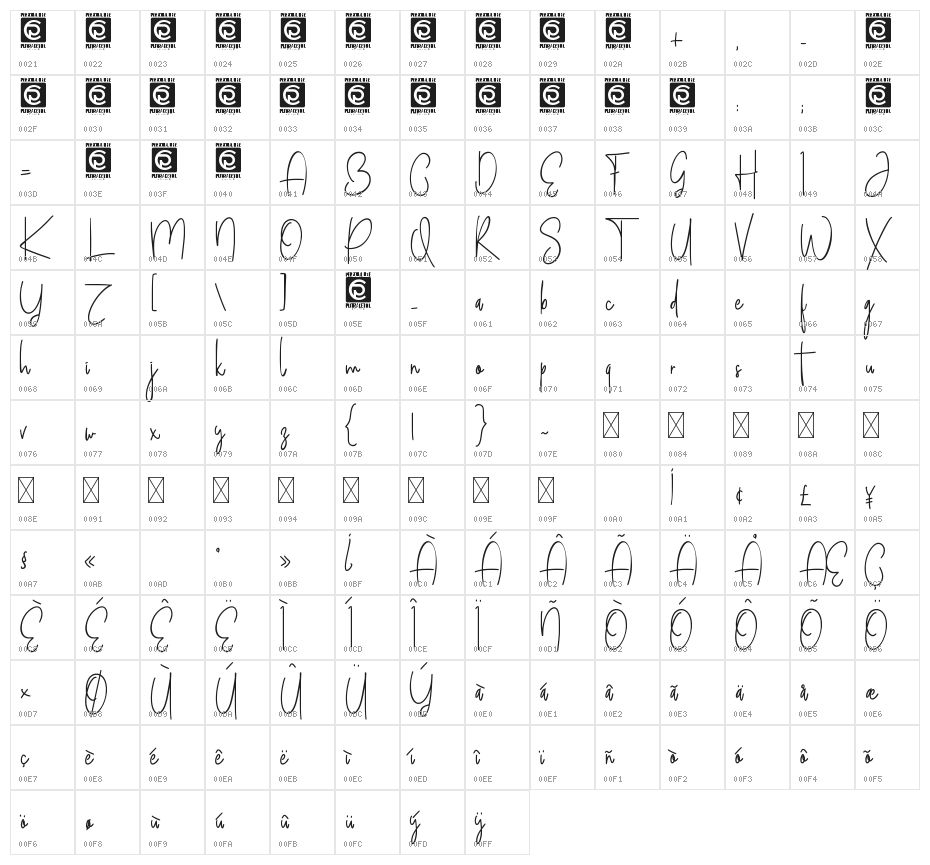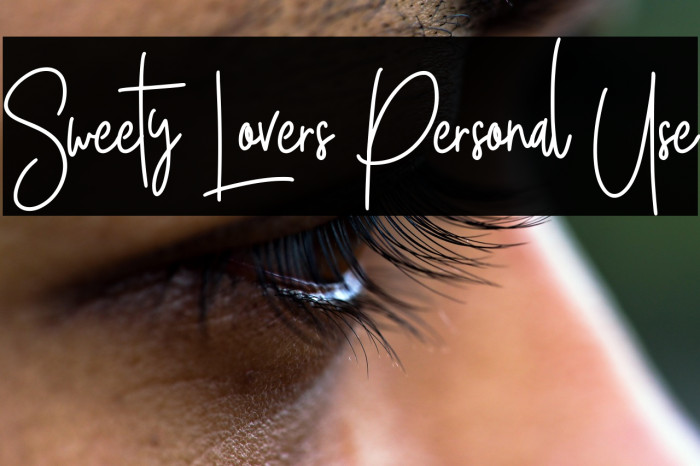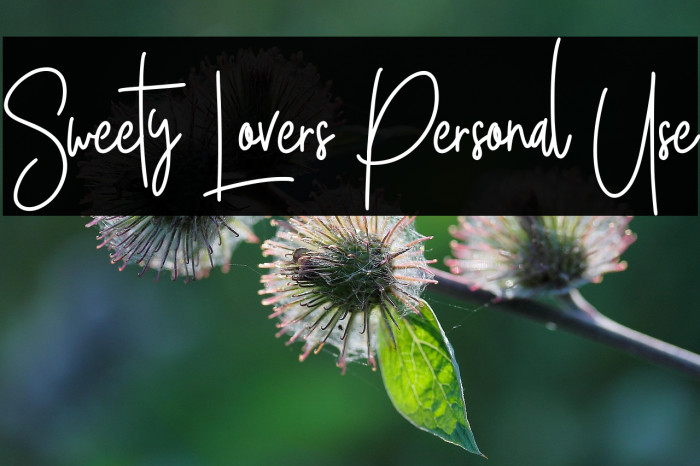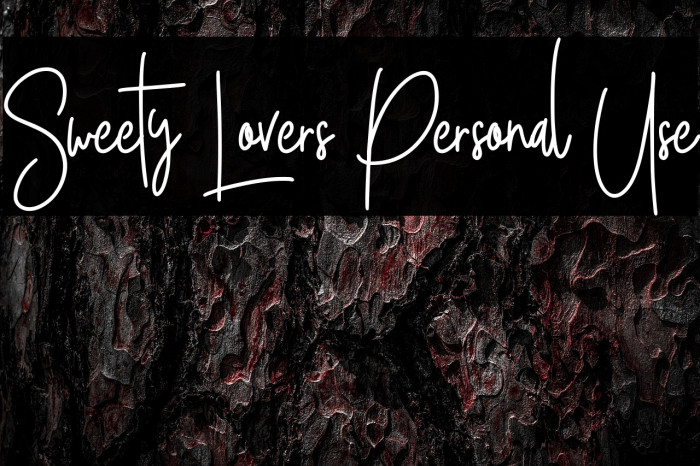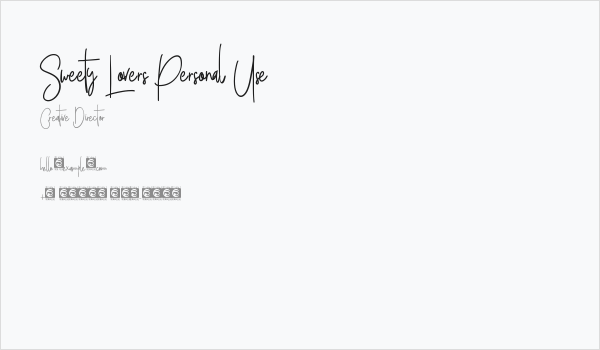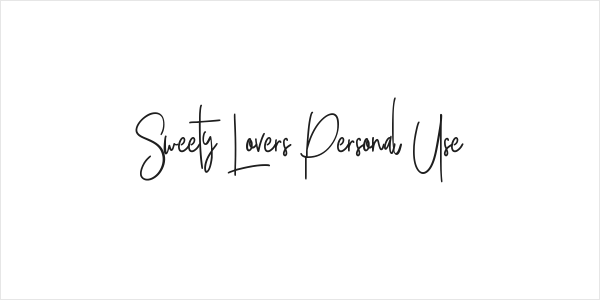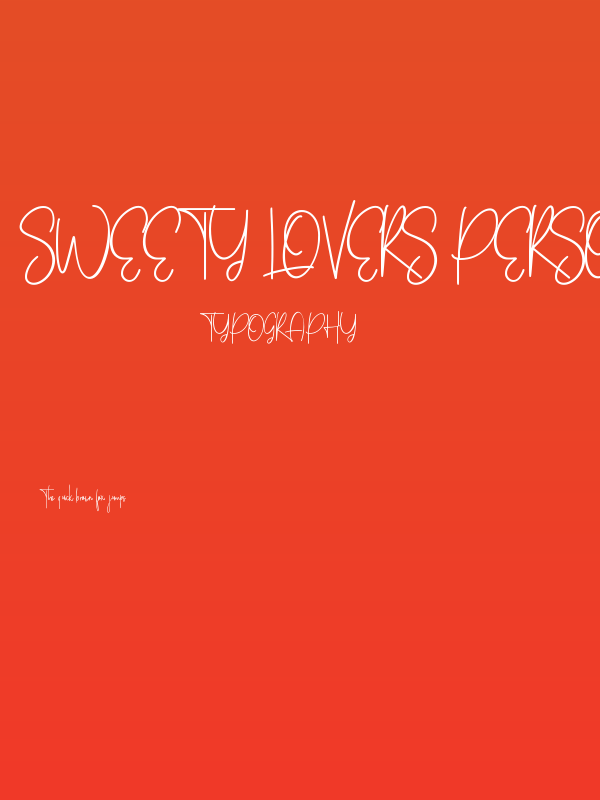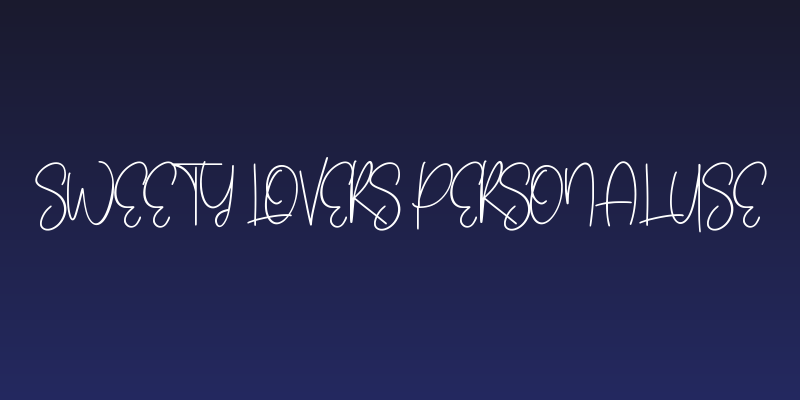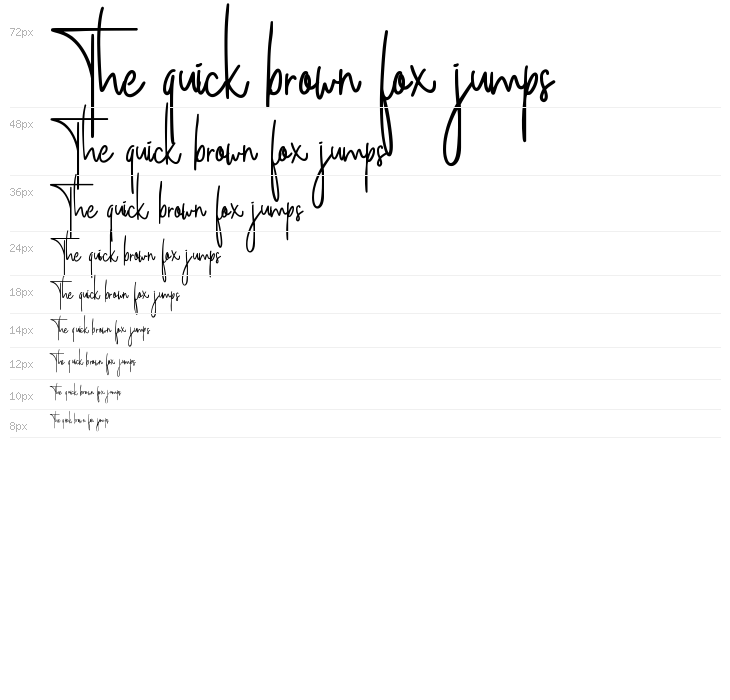
Sweety Lovers Personal Use Font
Sweety Lovers Personal Use Description
This font features a playful and whimsical handwritten style, characterized by its tall, narrow letters with a slight slant. The uppercase letters have a unique, artistic flair, with exaggerated loops and curves that give them a distinctive personality. The lowercase letters maintain a consistent flow, enhancing the font's casual and friendly appearance. The numbers and special characters follow the same playful design, making the font versatile for various creative projects. Its overall style is modern and decorative, suitable for adding a personal touch to designs.